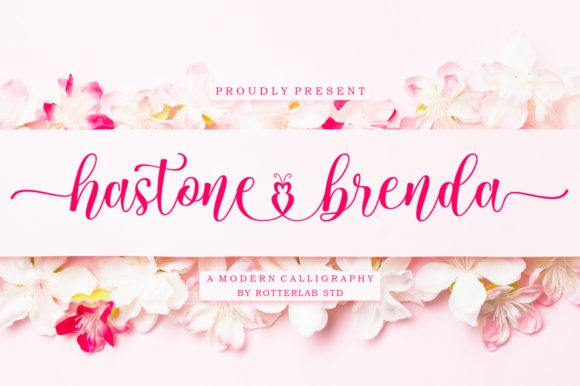
Hastone Brenda Font: Elevate Your Designs with Elegance and Sophistication
In the world of typography, few fonts capture the essence of elegance and sophistication as beautifully as the Hastone Brenda Font. This stunning handwritten font is designed to add a touch of class and refinement to any design project, making it a perfect choice for designers and crafters looking to create something truly special. In this article, we’ll explore the features and benefits of the Hastone Brenda Font, and how it can elevate your designs to new heights.
A Font that Exudes Elegance and Sophistication
Hastone Brenda Font is a masterpiece of typographic design, boasting a flowing and elegant style that is sure to captivate audiences. Its beautiful, cursive script features a varying baseline, smooth lines, and gorgeous glyphs that work together to create a truly stunning visual effect. Whether you’re designing wedding invitations, thank you cards, quotes, greeting cards, logos, or business cards, this font is the perfect choice to add a touch of sophistication and refinement.
Key Features of Hastone Brenda Font
- Varying Baseline: The font’s varying baseline creates a sense of movement and fluidity, adding to its elegant and sophisticated feel.
- Smooth Lines: The smooth lines of Hastone Brenda Font create a beautiful, cursive script that is easy on the eye.
- Gorgeous Glyphs: The font features a wide range of gorgeous glyphs, including stunning alternates that allow you to customize your designs and add unique touches.
Why Choose Hastone Brenda Font?
- Unique and Elegant Design: Hastone Brenda Font boasts a unique and elegant design that will set your designs apart from the crowd.
In conclusion, Hastone Brenda Font is a stunning handwritten font that is perfect for designers and crafters looking to add a touch of elegance and sophistication to their designs. With its beautiful, cursive script, varying baseline, smooth lines, and gorgeous glyphs, this font is sure to captivate audiences and leave a lasting impression. Whether you’re designing wedding invitations, thank you cards, quotes, greeting cards, logos, or business cards, Hastone Brenda Font is the perfect choice. So why wait? Download Hastone Brenda Font today and elevate your designs to new heights!